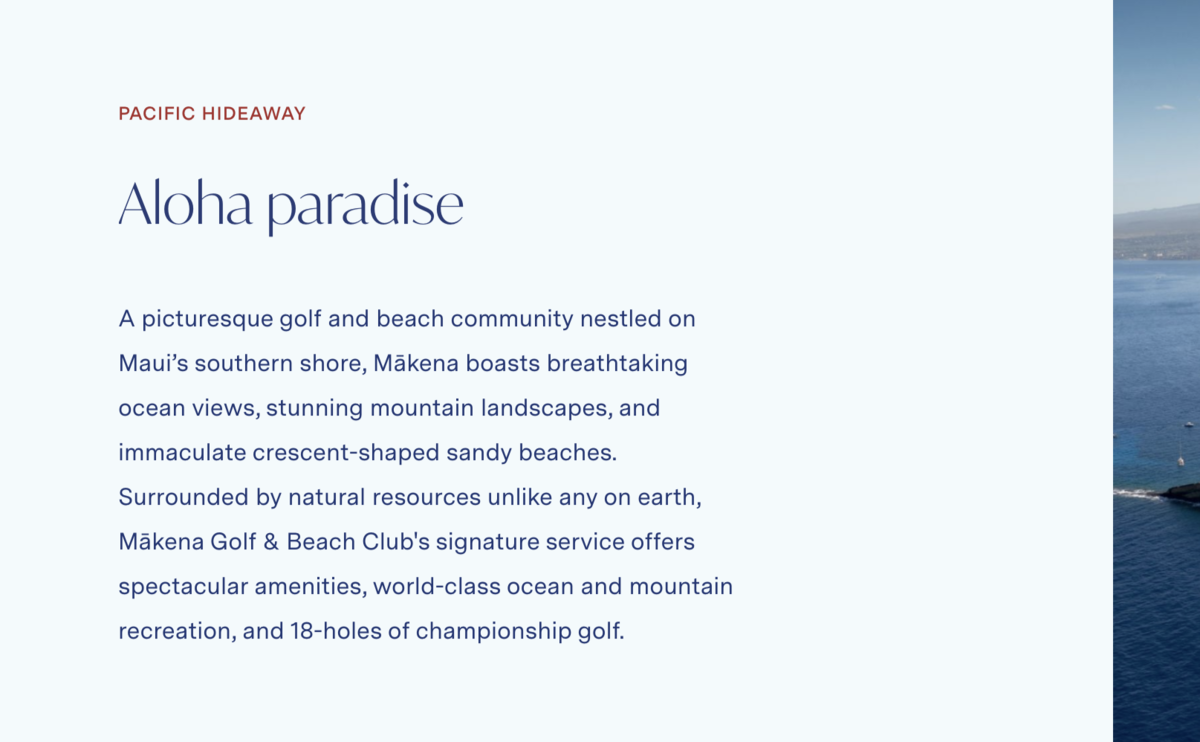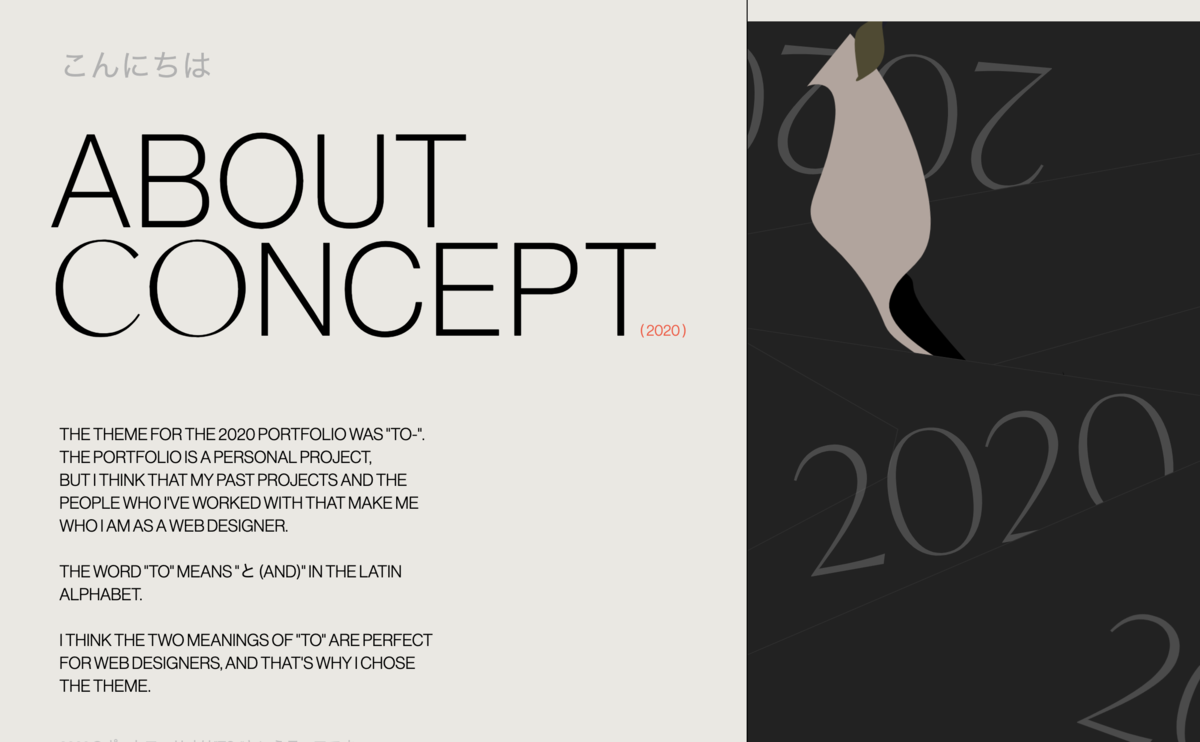
Ivy Mode Font Pairing
This will enable typographic control by including the actual font data in the document. The design features high contrast and flared stroke endings.
Specially designed for haute couture projects, perfectly suitable for creating fashionable, bold design such as title, magazine, social media, and more.
Ivy mode font pairing. It’s one of the oldest typographic ornaments, present in early greek and roman inscriptions. The foundry takes its name from the fleuron—a glyph used as a punctuation mark or as an ornament for typographic compositions. The family is available in three optical sizes— ivypresto text , ivypresto headline and ivypresto display (shown in the specimen), each with five weights and matching italics.
If you recognize the font from the samples posted here don't be shy and help a fellow designer. Making the web more beautiful, fast, and open through great typography Jan maack’s new sans hints at serifs via subtly flared stroke endings and offers an extended collection of novel ligatures, alternates, and additional glyphs.
A clean sans serif typeface with advanced typographical features a slab serif taking cues from typewriter faces ideal for fashion magazines a highly legible contemporary serif an illustrated typeface with a joyful look and feel. Ivypresto is a serif typeface designed by jan maack and published through the ivy foundry in 2020. How to intall the font in:
The ivy foundry, founded in 2016 by jan maack, is a small independent type foundry based in denmark. The text is editable, try replacing it with your company name or other copy. It’s one of the oldest typographic ornaments, present in early greek and roman inscriptions.
Regular), 496 characters in total. The goal of font pairing is to select fonts that share an overarching theme yet have a pleasing contrast. The foundry takes its name from the fleuron—a glyph used as a punctuation mark or as an ornament for typographic compositions.
How to intall the font in: This is a great example of how to use fonts in concord with one another. The foundry takes its name from the fleuron—a glyph used as a punctuation mark or.
Here we have a pairing of two sans serif fonts.